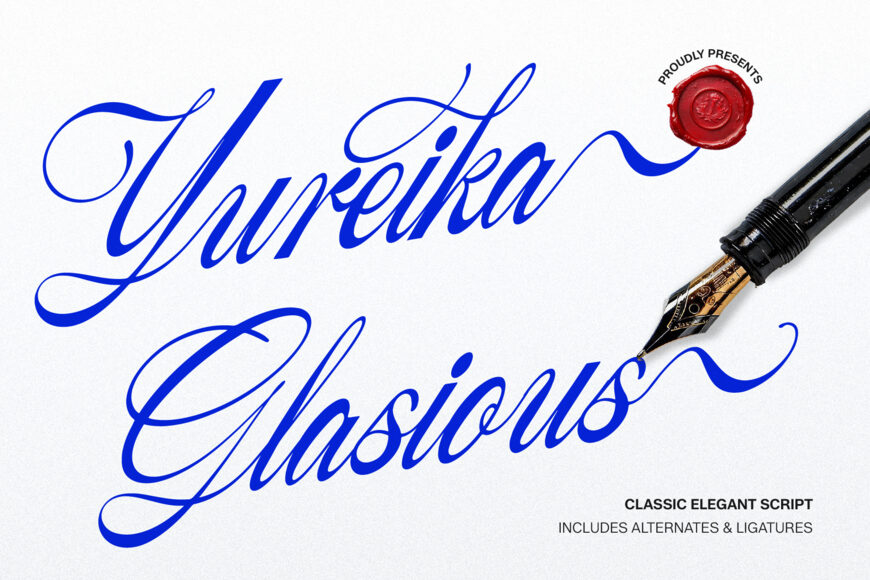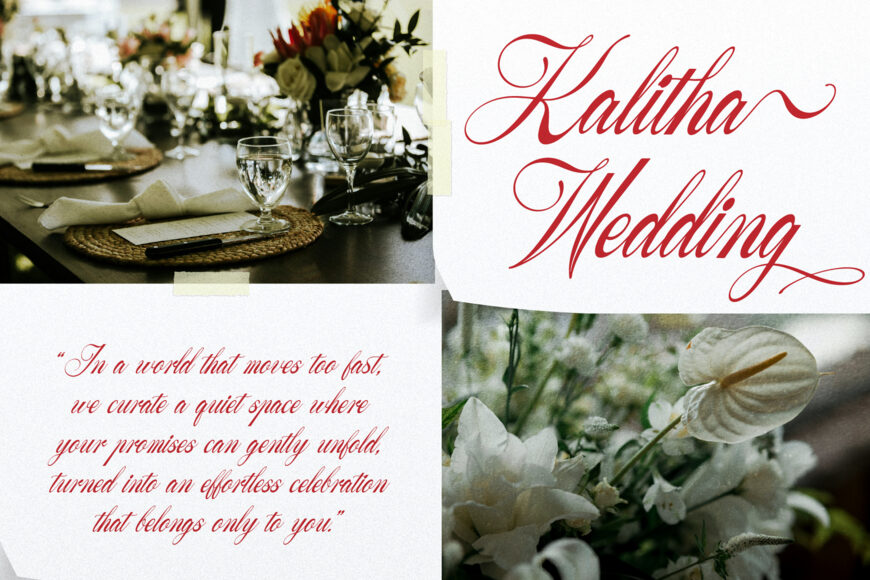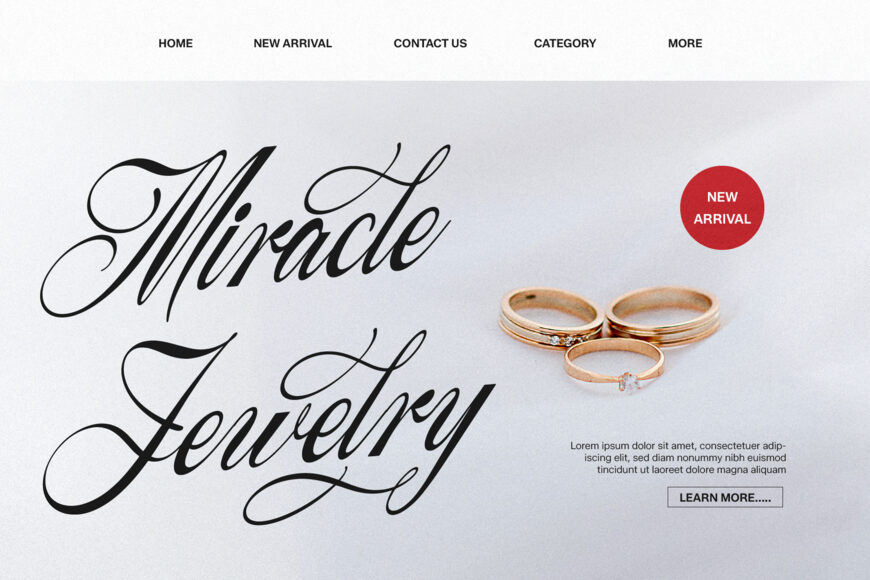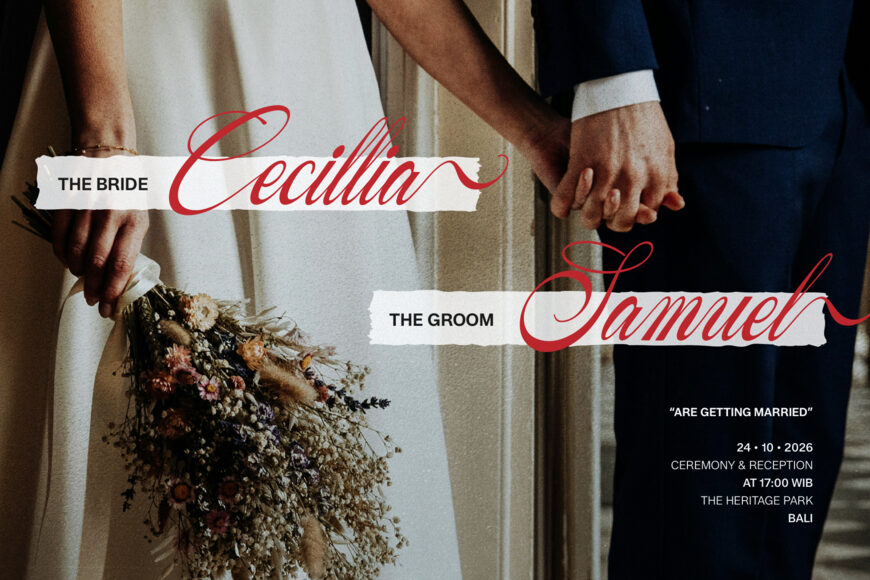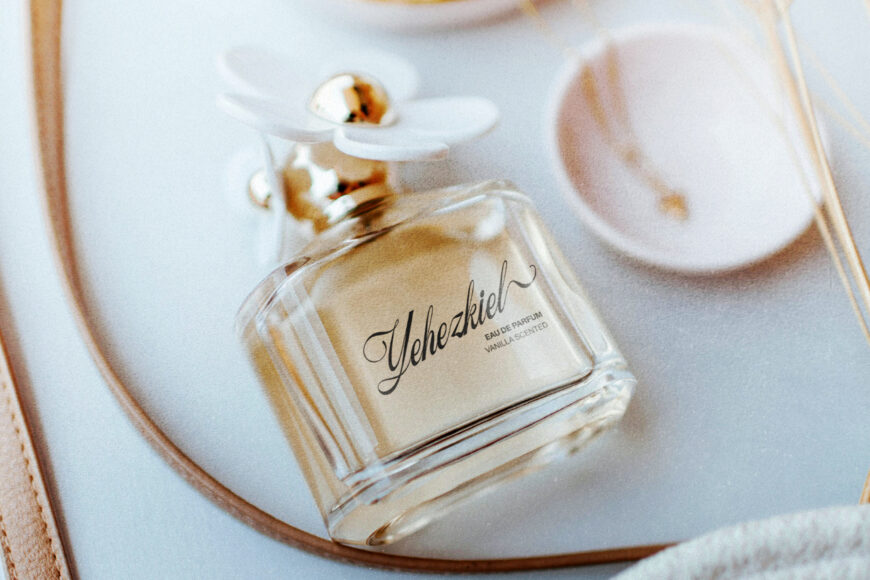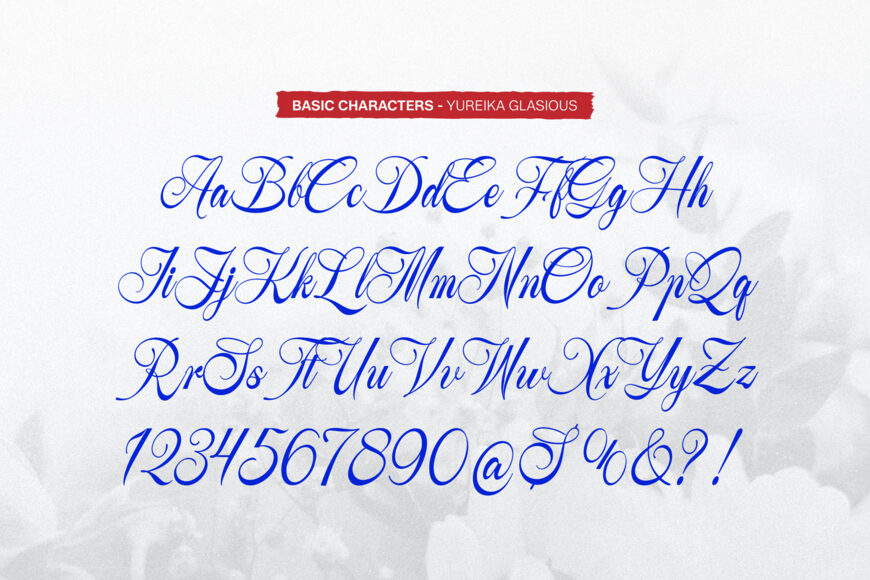
Yureika Glasious Font
Infuse your typography with royal elegance, sweeping calligraphic swashes, and fountain-pen craftsmanship using Yureika Glasious! Designed as a classic elegant script font, it features fine fluid strokes, grand looping capitals, and romantic sweeping tails. Complete with alternates and ligatures, Yureika Glasious brings high-end bridal luxury and timeless sophistication to every layout.